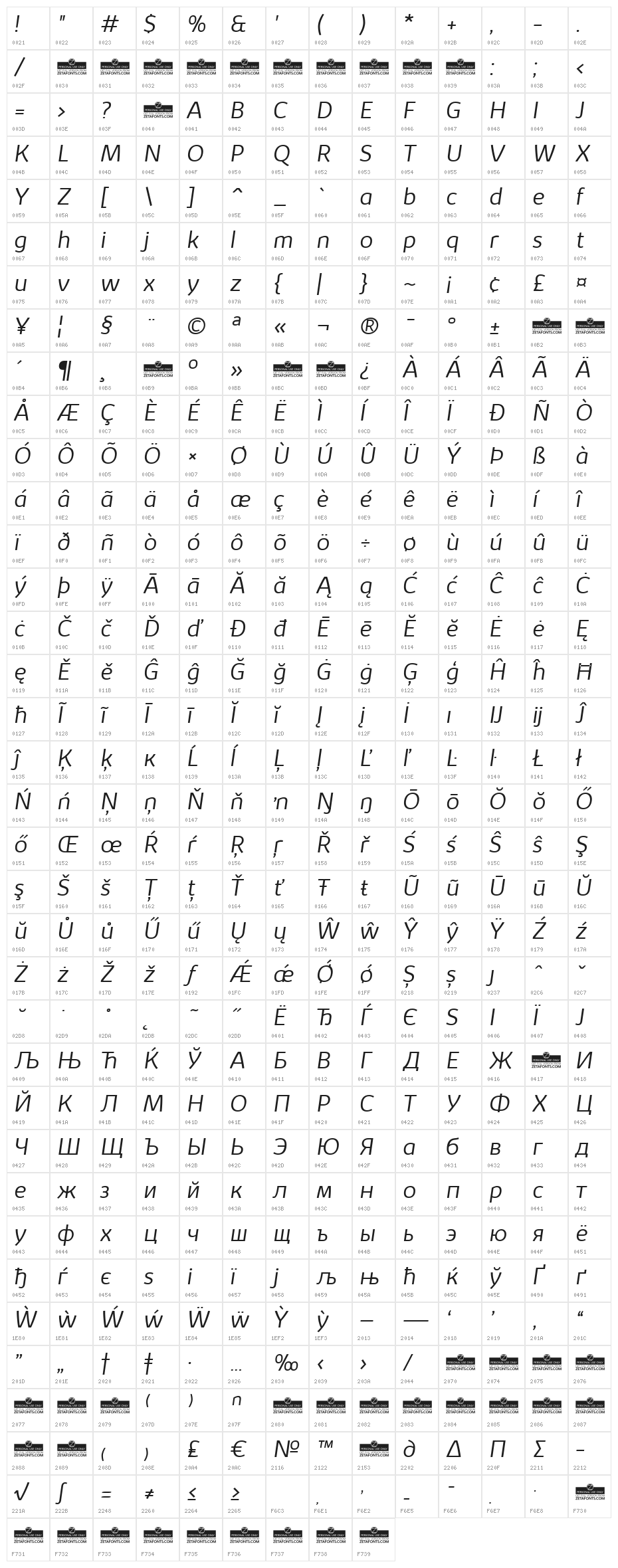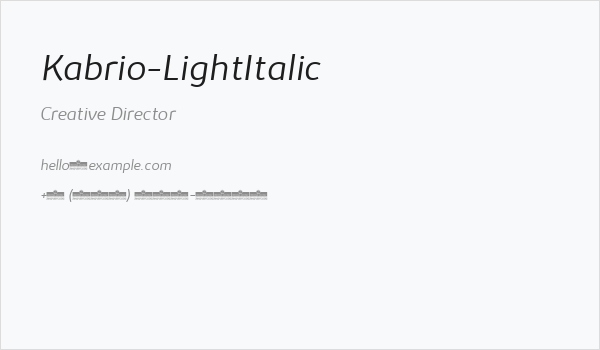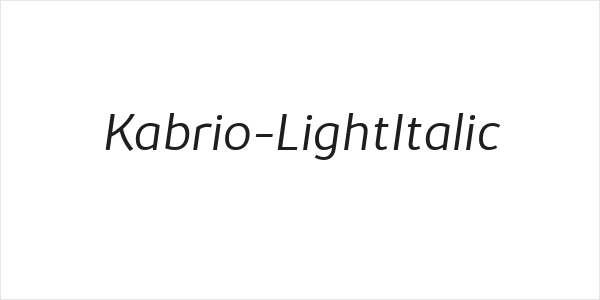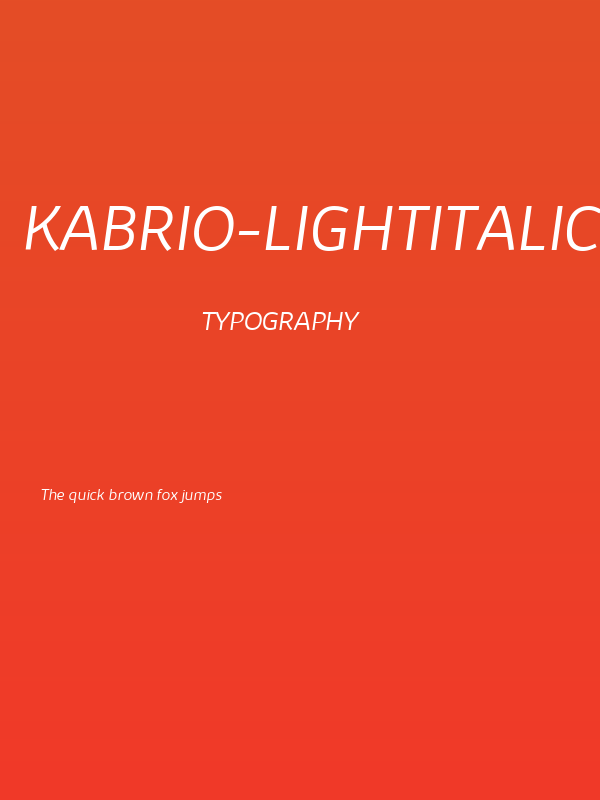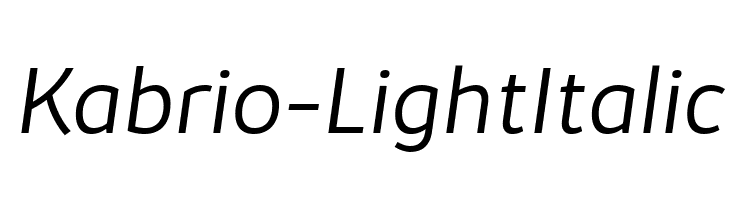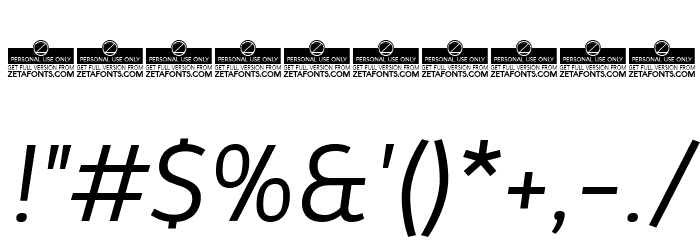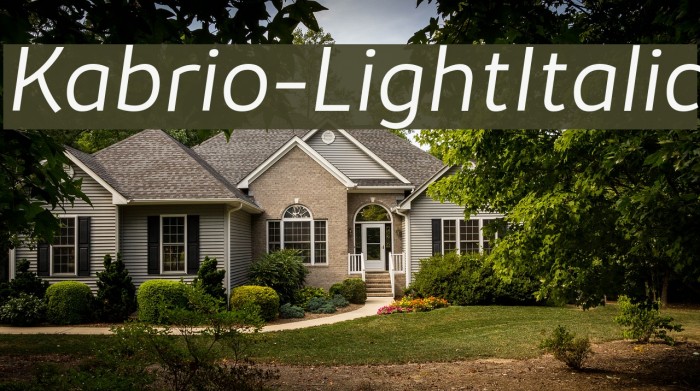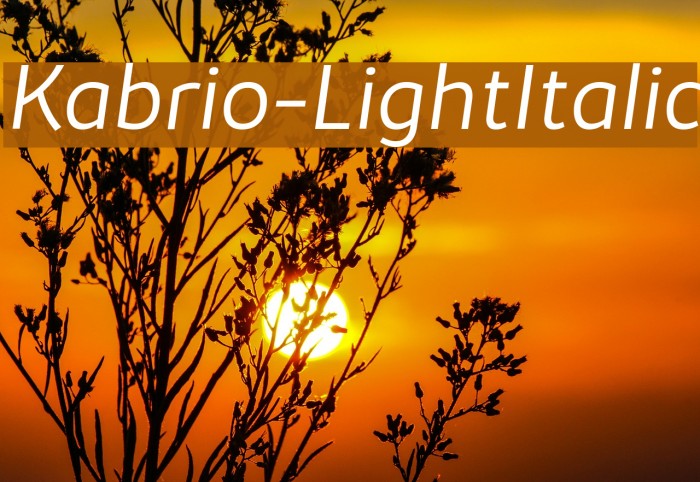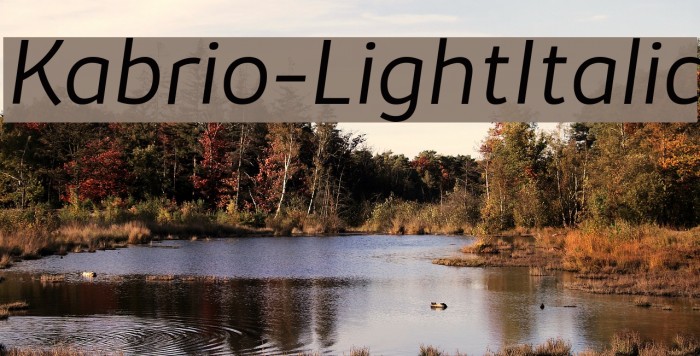
Kabrio-LightItalic Font
✎ Sans Serif
Kabrio-LightItalic Description
This font features a sleek, modern design with a light weight and italic style. The characters are slightly slanted, giving a dynamic and elegant appearance. The sans-serif design ensures clarity and readability, making it suitable for various applications. The strokes are consistent and smooth, with a medium contrast that adds to its legibility. The character spacing is normal, providing a balanced and harmonious look across different text sizes. The font includes a full set of uppercase and lowercase letters, numbers, and a variety of special characters, making it versatile for different uses.
| Use Case | Headlines, Body text, Logos |
| Proposed Projects | Ideal for branding, editorial design, websites, and digital interfaces where a clean and contemporary look is desired. |